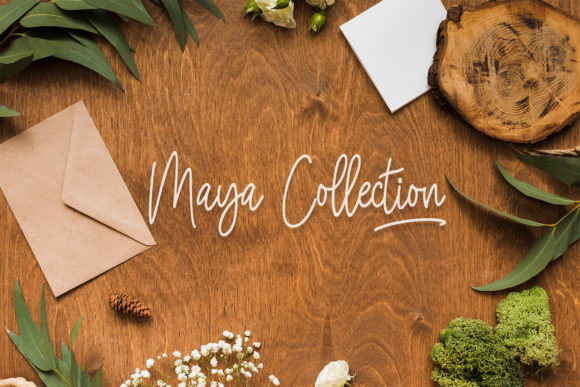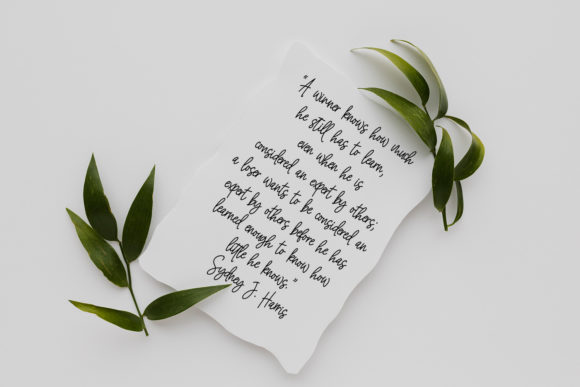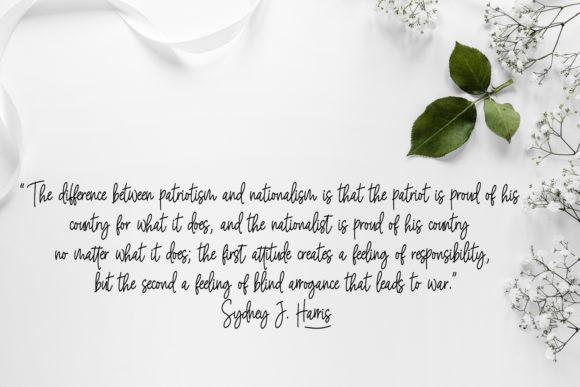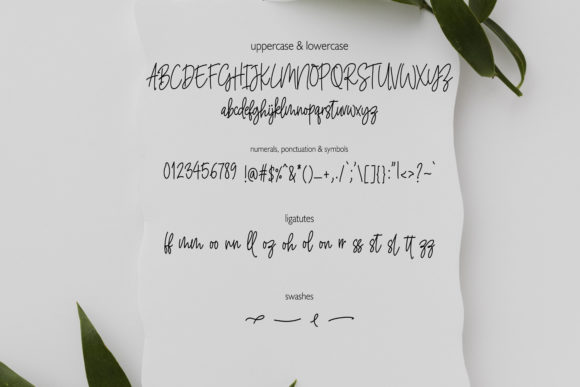
Introduction to Jahannam Balla Font
As designers, we’ve all been there – staring at a blank canvas, eager to bring a creative project to life, but unsure of where to start. The perfect font can make all the difference, transporting your design from bland to grand in an instant. That’s exactly what I experienced when I stumbled upon the enchanting Jahannam Balla Font.
With its soft, hand-lettered script, this free download has captured the hearts of designers worldwide. Its authentic feel and versatility make it an invaluable resource for any design project, from wedding invitations to social media posts and greeting cards. Whether you’re a seasoned pro or just starting out, the Jahannam Balla Font is a must-have in your design arsenal.
Key Features of Jahannam Balla Font
- Unique Script Style: Jahannam Balla Font offers a distinctive and elegant script style, perfect for creative projects that require a touch of sophistication.
- High-Quality Design: This font is designed to provide high-quality results, making it an excellent resource for designers and artists working on various projects.
- Transparent Background: The transparent background of Jahannam Balla Font allows for seamless integration with any design, making it a versatile design resource.
- Resolution: The font is designed to work at high resolutions, making it suitable for use in a variety of creative projects, from print to digital media.
- Perfect for Creative Projects: Jahannam Balla Font is ideal for use in creative projects, such as logos, typography, and other design elements that require a unique and elegant script style.
Honest Review: Jahannam Balla Font
I recently stumbled upon the Jahannam Balla Font while searching for a unique design resource for a creative project. I was immediately drawn to its distinctive style and the fact that it’s available for a free download.
- ✨ What works well: The font’s unique blend of traditional and modern elements makes it perfect for projects that require a touch of elegance and sophistication. The transparent background also makes it easy to customize and layer over other design elements.
- ✨ What works well: The font is incredibly versatile and can be used for a wide range of applications, from logos and branding to website headers and body text.
However, I did encounter a few limitations while using the font. ⚠️ The font’s complexity can make it difficult to read at smaller font sizes, and it may not be suitable for all types of projects.
Overall, I’m impressed with the quality of the Jahannam Balla Font and its potential to elevate creative projects. While it may not be perfect for every use case, it’s definitely a valuable addition to any designer’s toolkit.
The Jahannam Balla Font is a unique design resource perfect for creative projects that require a touch of elegance and sophistication. This high-quality font features a transparent background, making it easy to use in various design applications.
Tips for Getting the Most Out of Jahannam Balla Font
Experiment with different font sizes, colors, and styles to create visually appealing designs. You can also combine the Jahannam Balla Font with other design elements to create a unique look.
The Jahannam Balla Font is perfect for creative projects such as logos, brochures, business cards, and social media graphics. It’s also great for designing invitations, menus, and other print materials.